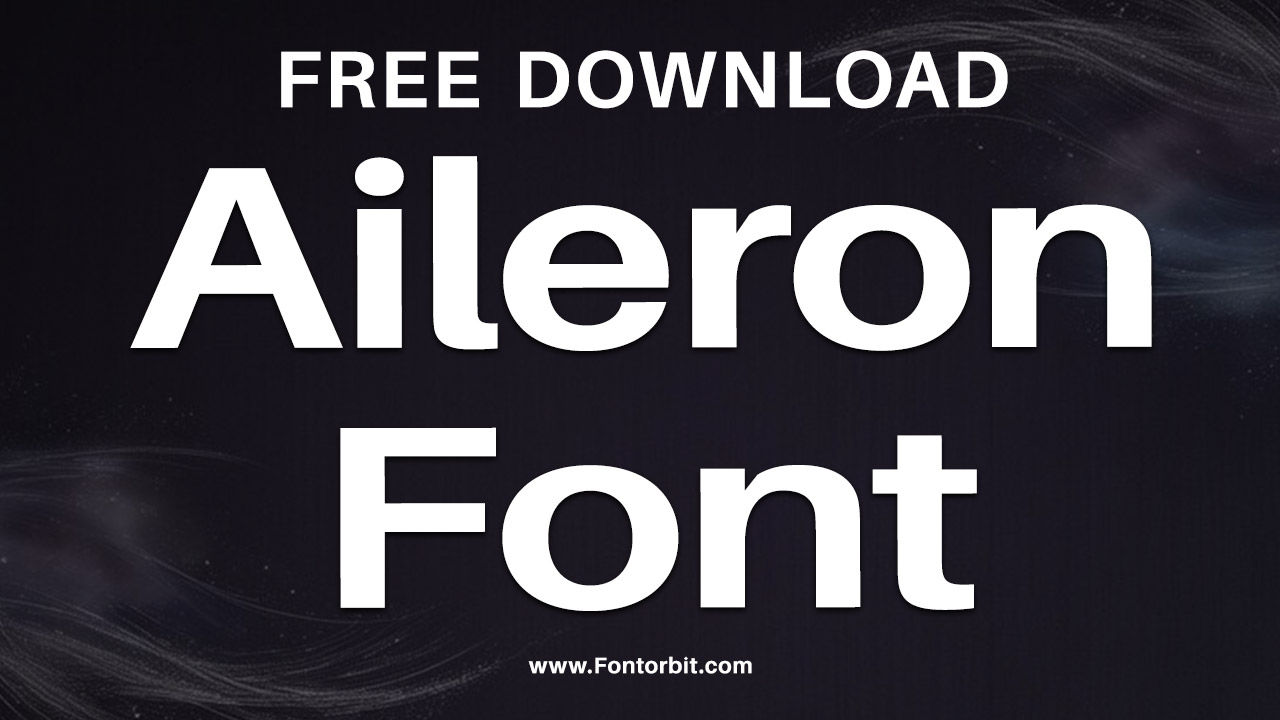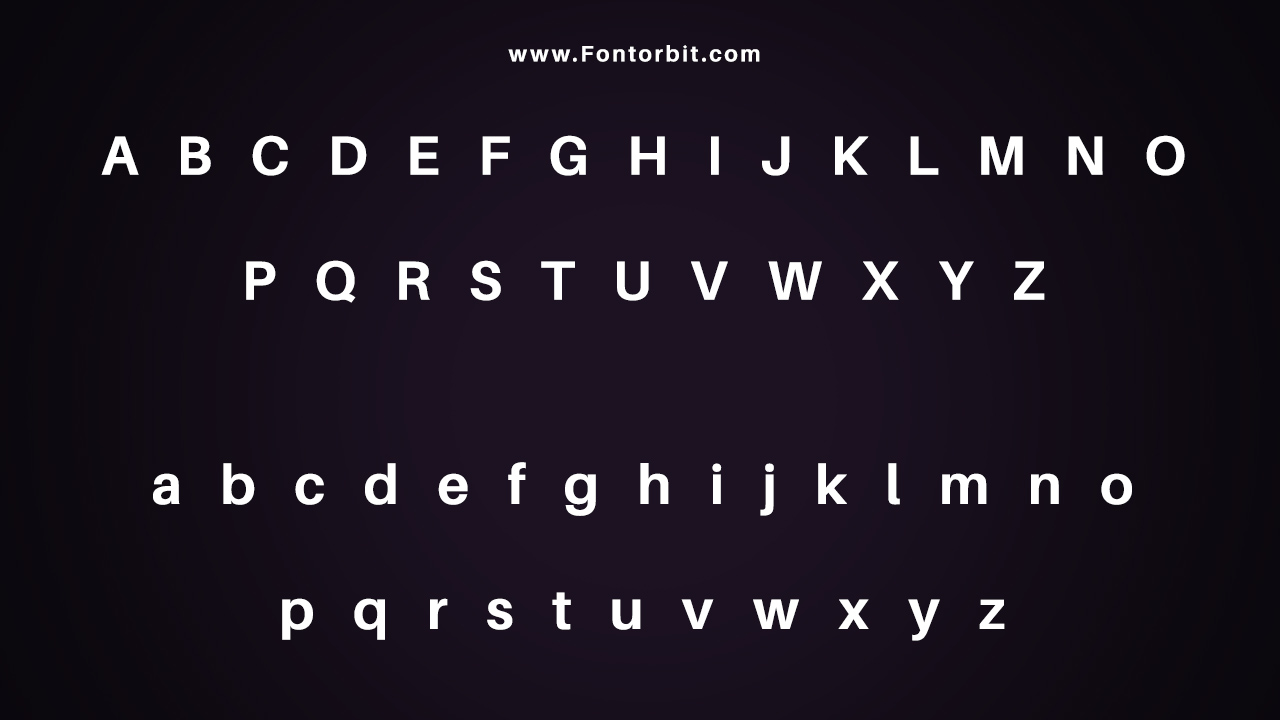
The Aileron font is a modern sans-serif typeface created by Japanese designer Sora Sagano and published in 2014. Its design draws inspiration from the classic Helvetica font, but with subtle tweaks to add versatility and readability across different digital and print mediums.
The Aileron font family includes various weights and styles, making it suitable for various creative and professional uses.
Aileron Family Includes
The Aileron font family offers an extensive range of styles to meet diverse design needs. Its clean and sleek appearance makes it a perfect choice for minimalistic design projects. Below is the list of the available styles in the Aileron family:
- Aileron Regular
- Aileron UltraLight
- Aileron Thin
- Aileron Light
- Aileron SemiBold
- Aileron Bold
- Aileron Heavy
- Aileron Black
- Aileron Italic
- Aileron UltraLight Italic
- Aileron Thin Italic
- Aileron Light Italic
- Aileron SemiBold Italic
- Aileron Bold Italic
- Aileron Heavy Italic
- Aileron Black Italic
Notable Uses Of Aileron Font
The Aileron font has been widely used in
- branding, UI/UX design,
- editorial design
- advertising
Due to its clean lines and modern aesthetic. It’s perfect for professional projects that require a sleek, unobtrusive font. Popular occasions where Aileron has been used include:
- Website and mobile app interfaces
- Professional business presentations
- Product packaging
- Brochures, flyers, and posters
- Social media graphics
- Minimalist logos
Aileron is a powerful and versatile sans-serif font with a modern and minimalist design that can enhance both digital and print projects. Its variety of styles makes it adaptable to different design needs, making it a favourite among designers. Whether you’re designing for web, print, or mobile, Aileron is a great choice that ensures readability and a clean aesthetic.
2.What Is The Best Use Case For Aileron?
Aileron works best in branding, UI/UX design, and print materials like brochures and magazines.
4.Can Aileron Be Used For Web Design?
Absolutely, Aileron is well-suited for web and mobile app interfaces.
8.Can I Use Aileron For Logo Design?
Yes, Aileron’s clean lines make it a popular choice for logo design.